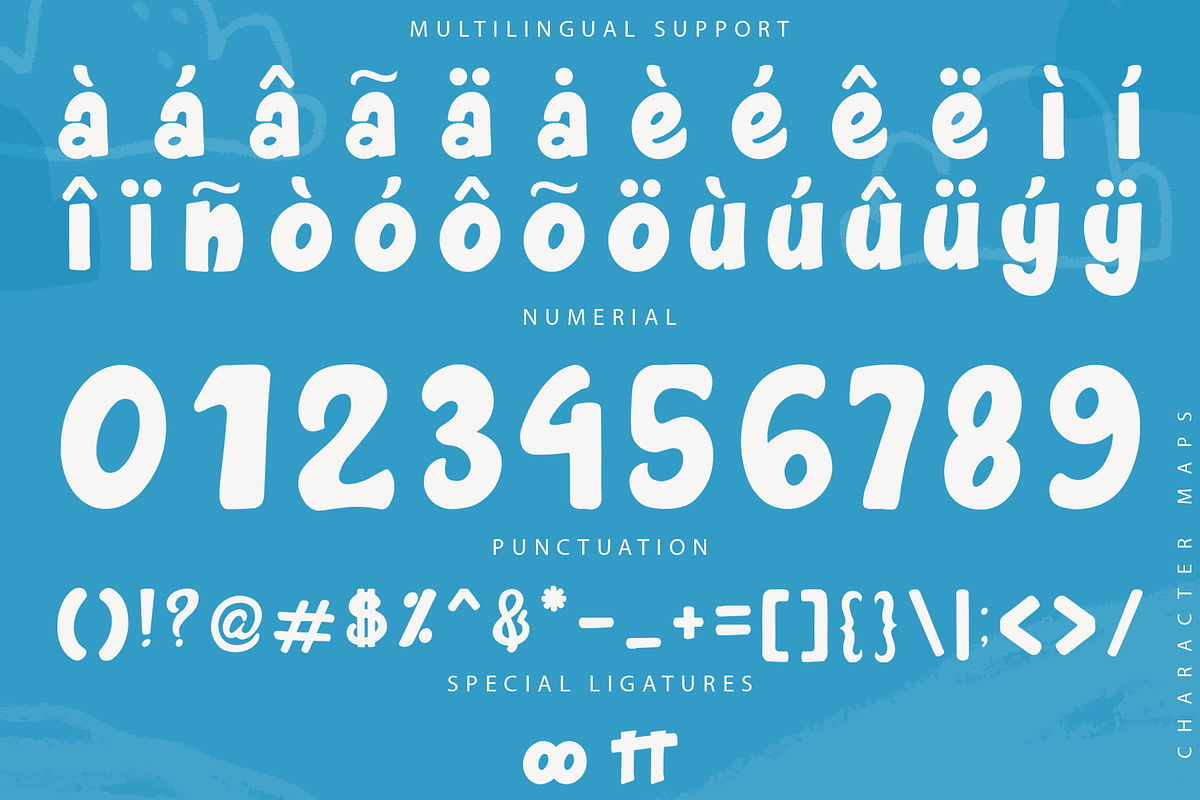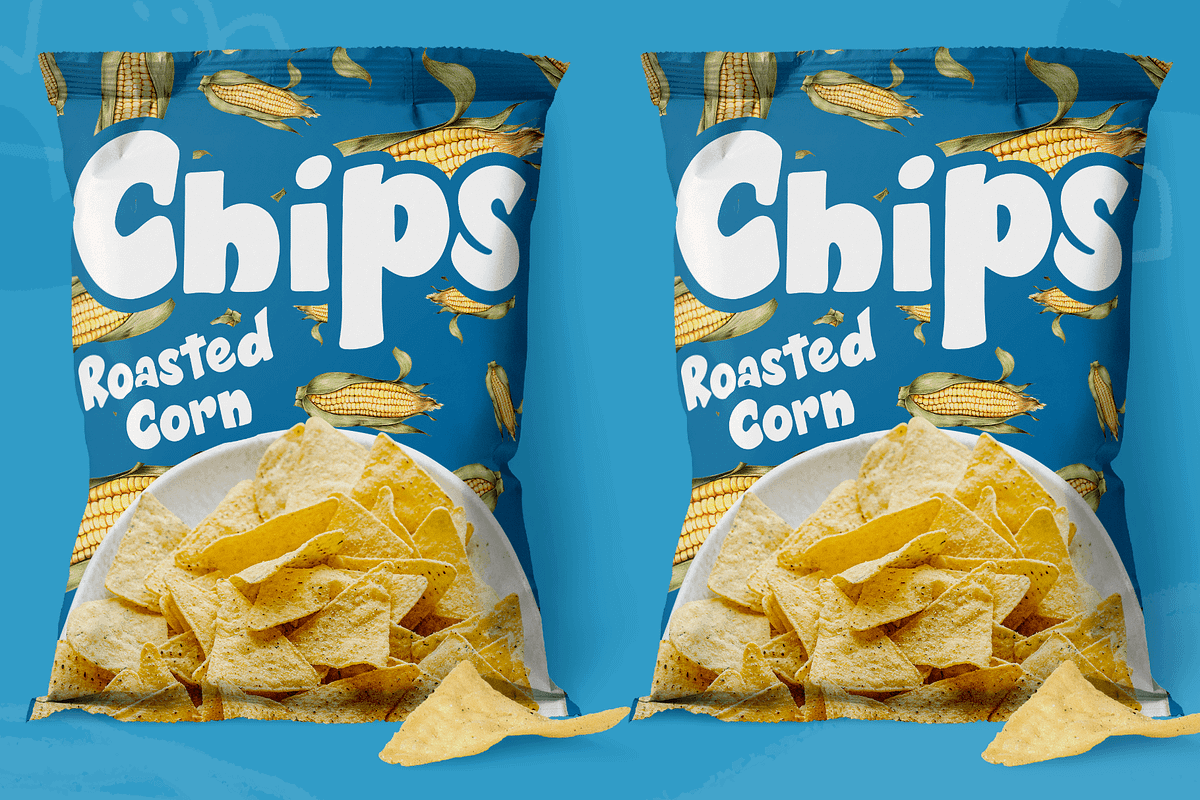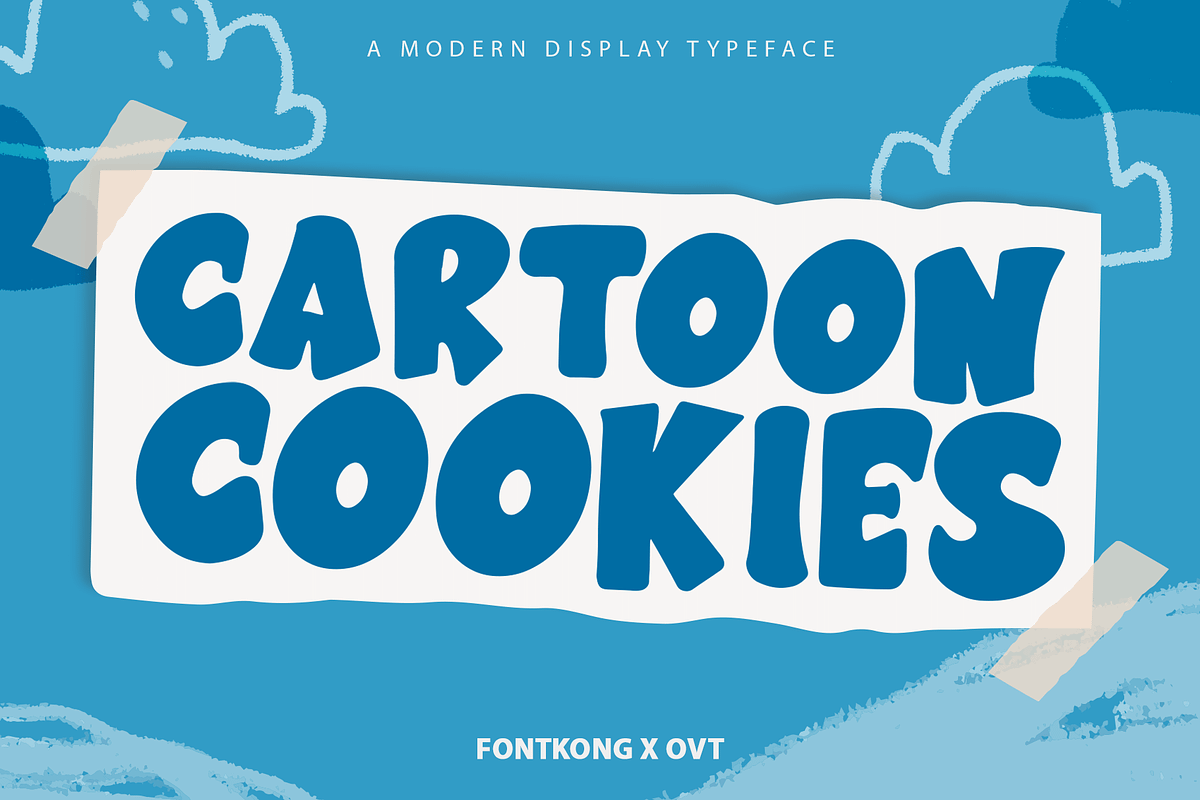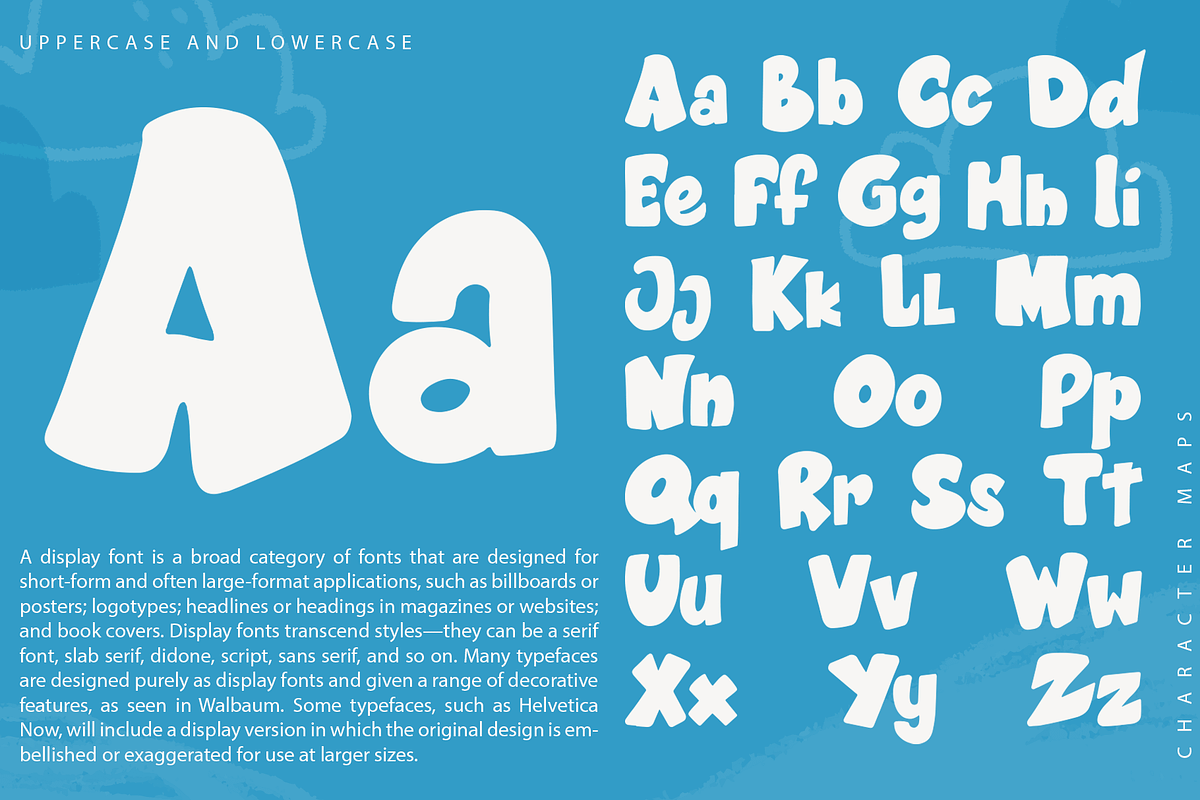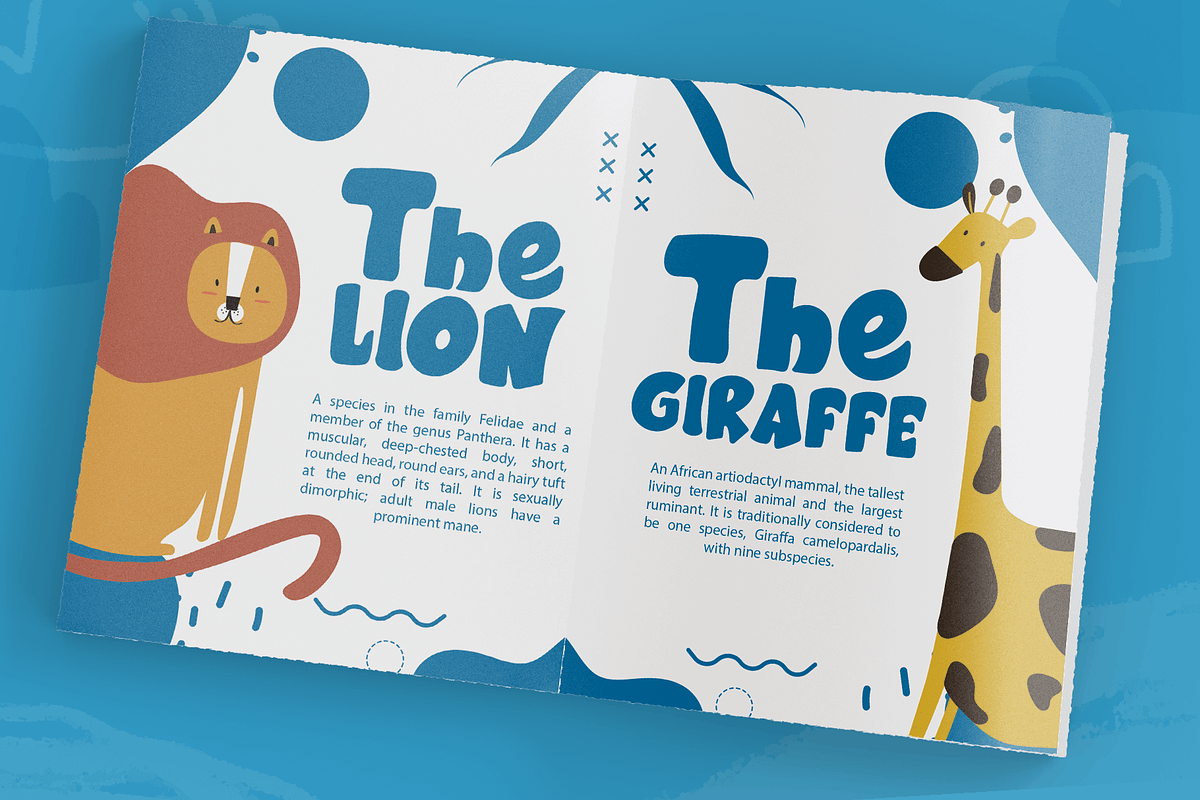
Cartoon Cookies - Modern Display
Cartoon Cookies - Modern Display Typeface
Introducing "Cartoon Cookies," a modern display typeface that brings a touch of whimsy and fun to your designs. Perfect for graphic designers, illustrators, and creatives looking to infuse their work with playful energy, Cartoon Cookies offers a delightful blend of contemporary style and cartoonish charm.
Ideal for children's books, packaging, posters, logos, and branding, Cartoon Cookies’ bold and quirky characters capture attention with their vibrant and engaging appearance. Each letter is carefully designed to provide a unique and joyful aesthetic, ensuring your projects stand out with a sense of fun and creativity.
The "Cartoon Cookies" font includes a complete set of uppercase and lowercase letters, numbers, punctuation marks, and special characters. This versatile set allows for seamless integration into various design applications, from cheerful branding to imaginative editorial layouts.
Add a sprinkle of joy to your designs with Cartoon Cookies, the modern display typeface that combines whimsy and style in every letter.